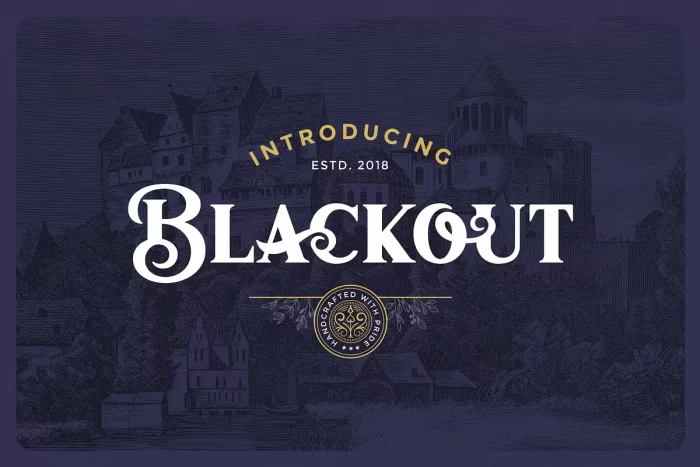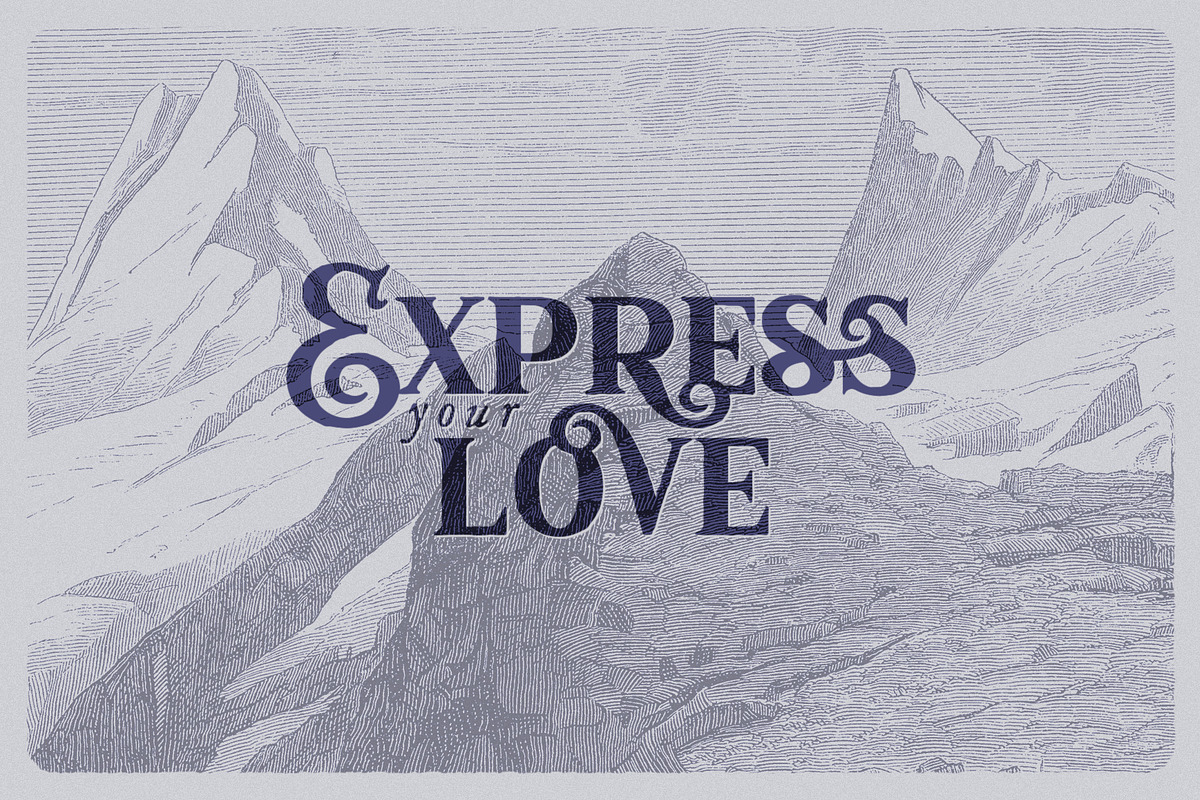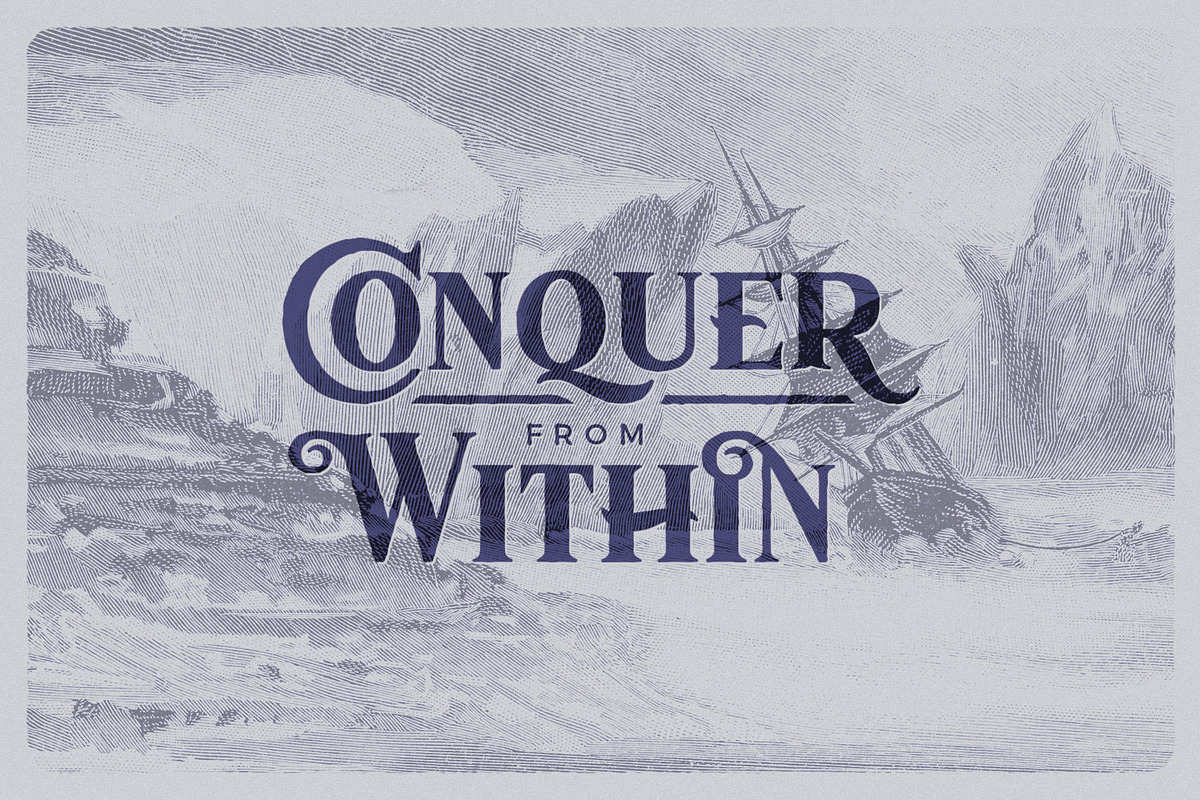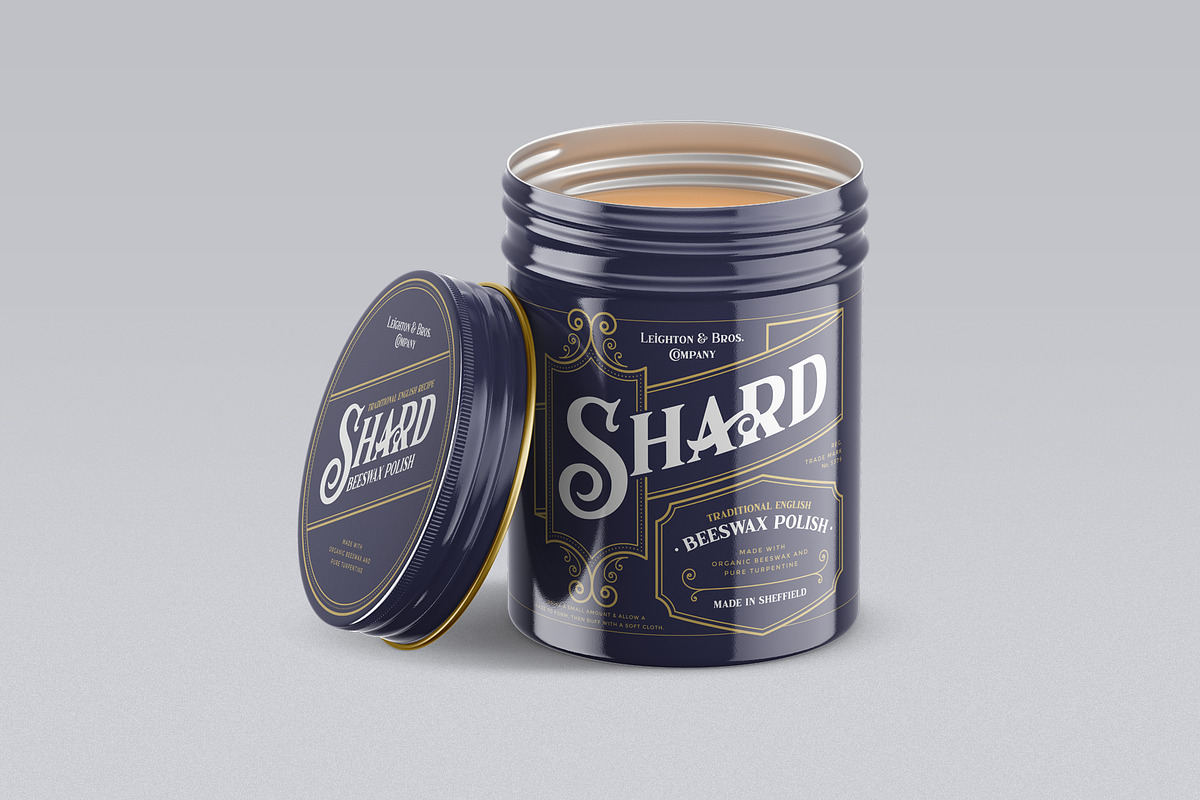
Blackout is a new display vintage font with tons of cool characters, symbols, and OpenType Features. It is perfect for quotes, logos, apparel, advertising, wedding invitations and packaging design.
The font supports most Latin Script languages such as English, Spanish, French, German, Portuguese, Italian, Norwegian, Swedish, Irish, Turkish, etc.
- All Caps & Small Caps font
- Stylistic Alternates
- Swashes
- Multilingual Support
- Ligatures
- Symbols & Punctuation
- A total of 280 Glyphs
- OpenType Features
- Bonus Characters